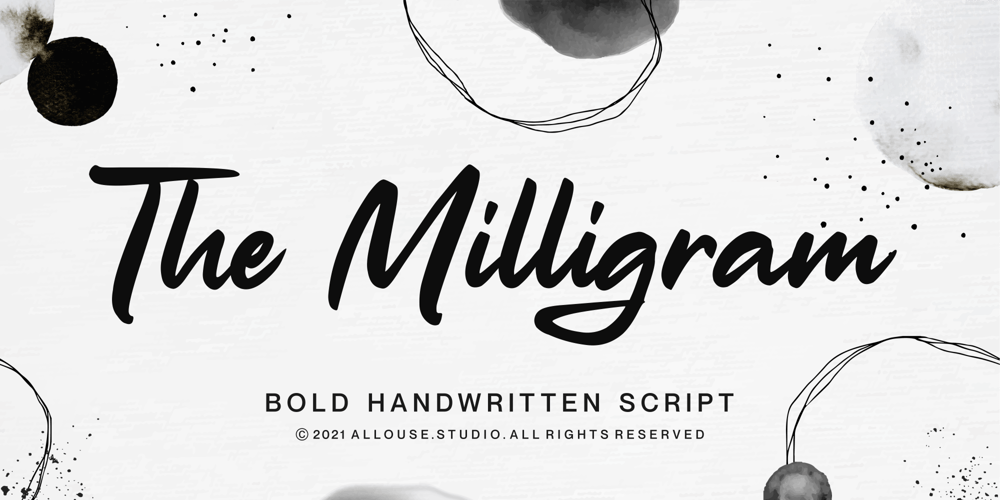
The Milligram Font Family was designed by Fachrizal Yusuf and published by Allouse Studio. The Milligram contains 1 styles and family package options. Proudly Presenting, The Milligram a Bold Handwritten Script.The Milligram is perfect for any titles, logo, product packaging, branding project, megazine, social media, wedding, or just used to express words above the background.The Milligram also come with Multi-Lingual Support.Enjoy the font, feel free to comment or feedback, send me PM or email. Thank You!